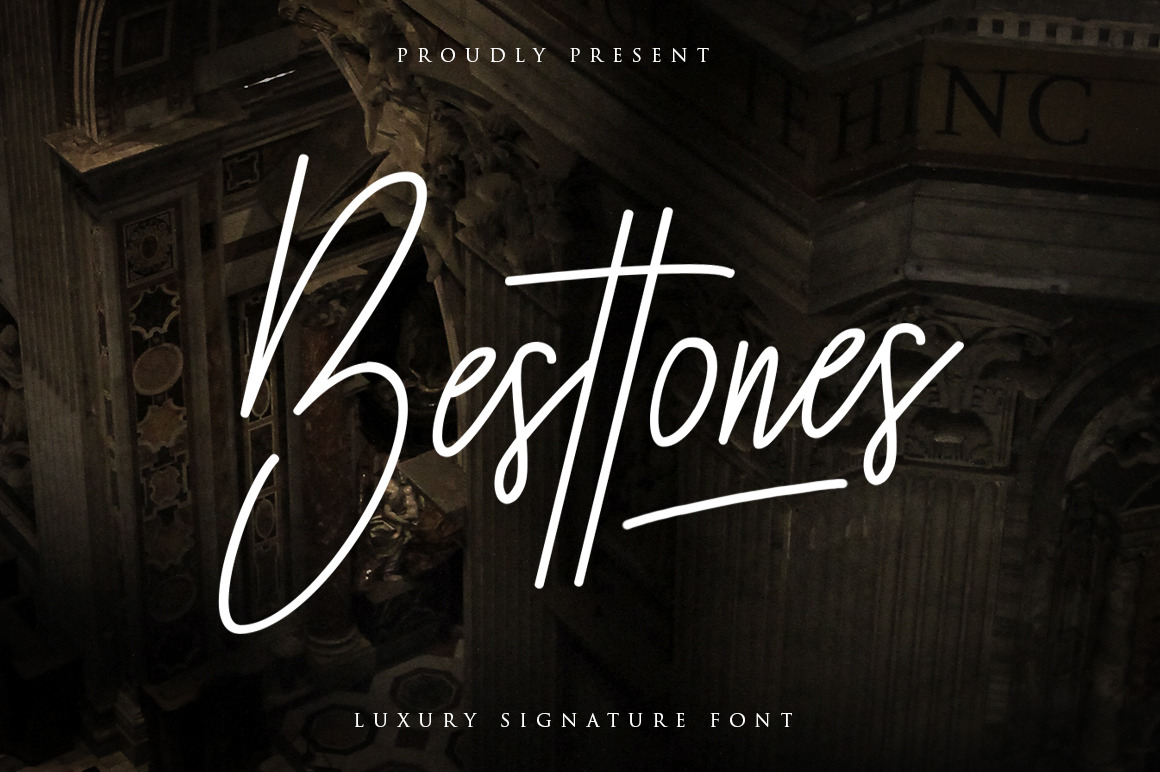
Besttones Signature Font
Introducing of our new product the name is Besttones Luxury Signature Font. Inspired by signature and stylish handwriting, perfect for many different project such as logos & branding, invitation, stationery, wedding designs, social media posts, advertisements, product packaging, product designs, label, photography, watermark
STYLES :
- Besttones Regular
- Besttones Bold
- Opentype Feature
- Multilingual Support AÀÁÂÃÄÅCÇDÐEÈÉÊËIÌÍÎÏNÑOØÒÓÔÕÖUÙÜÚÛß